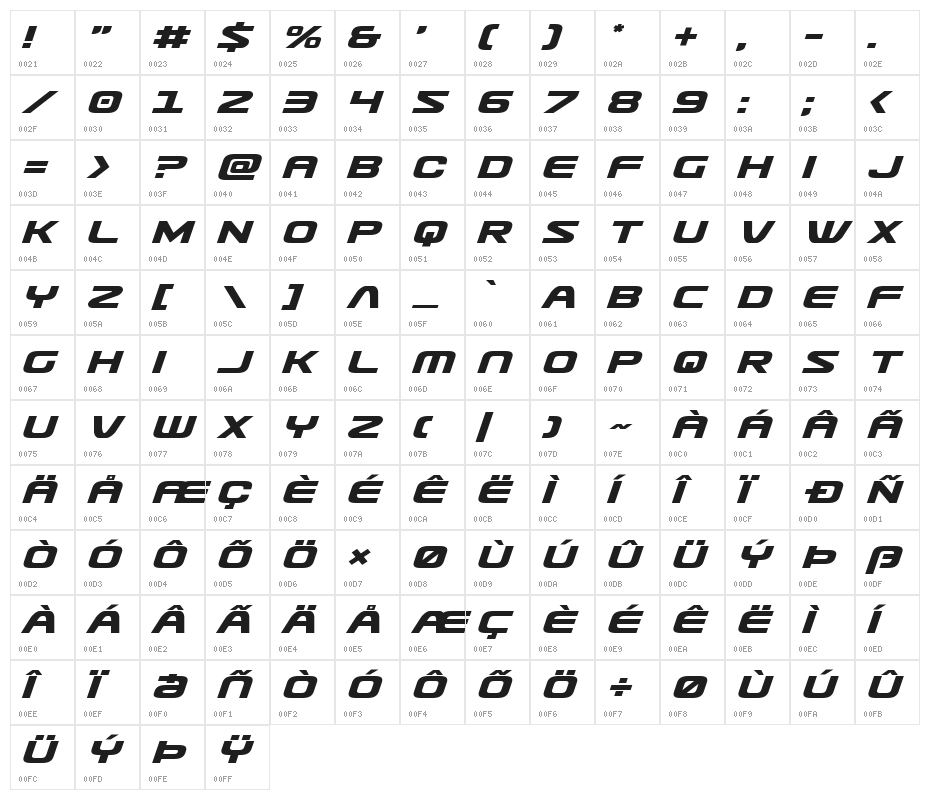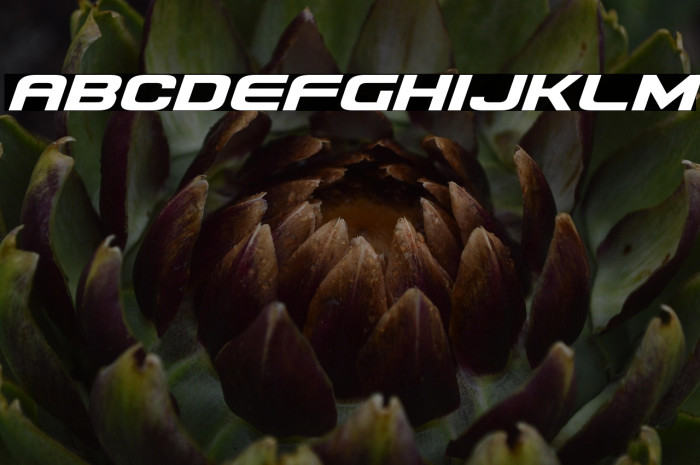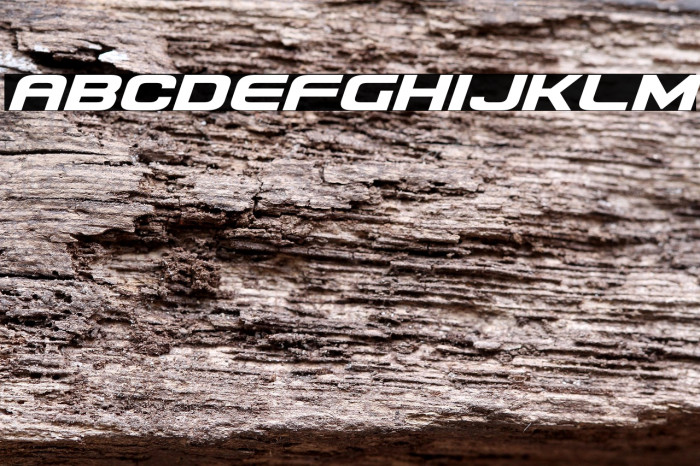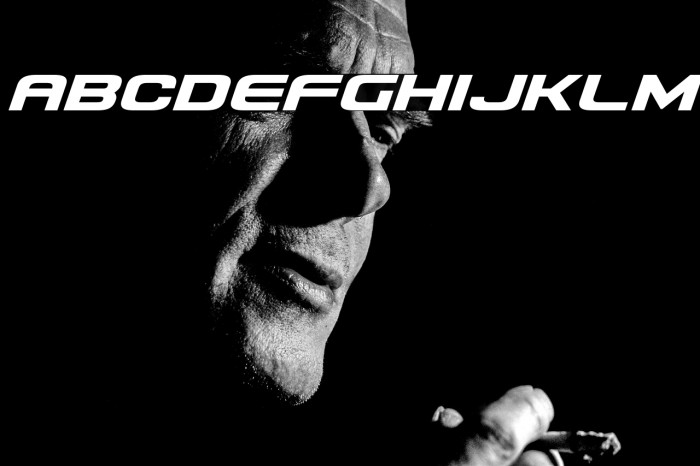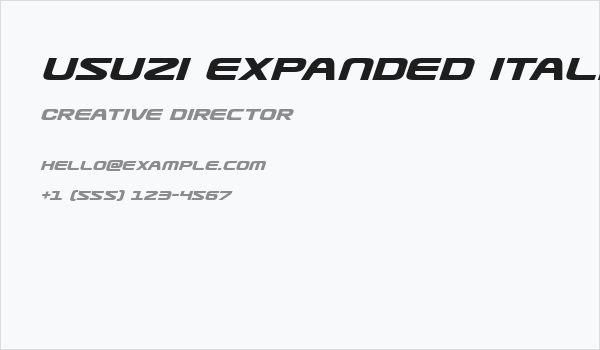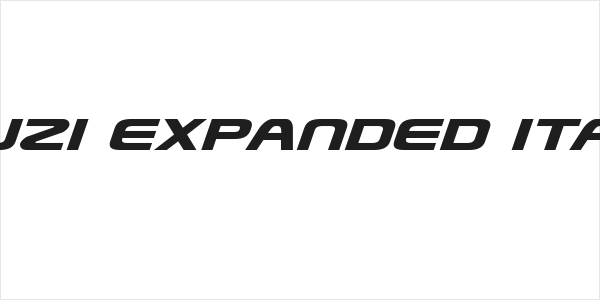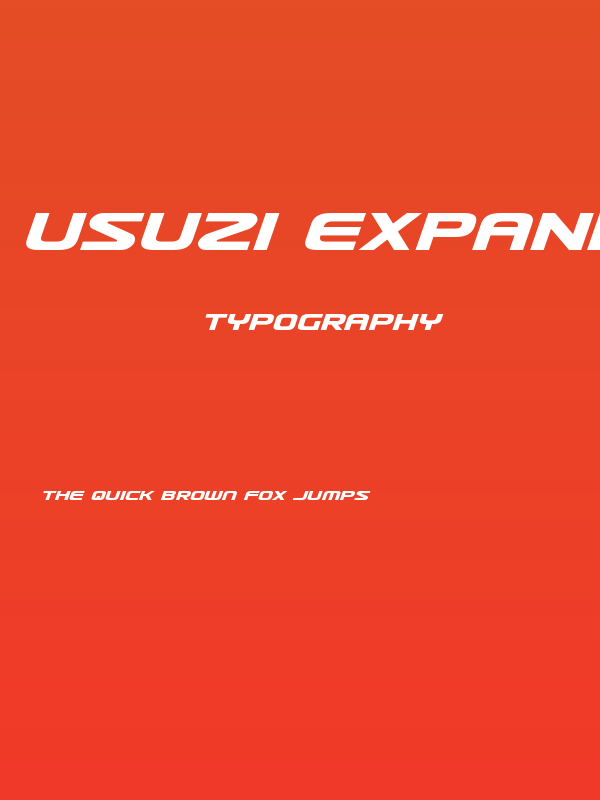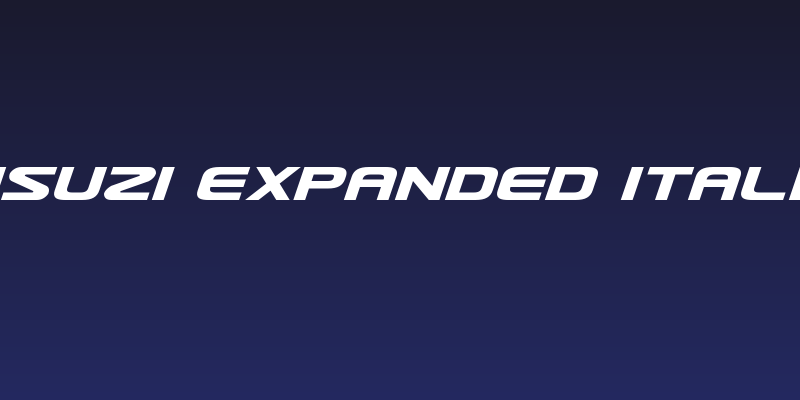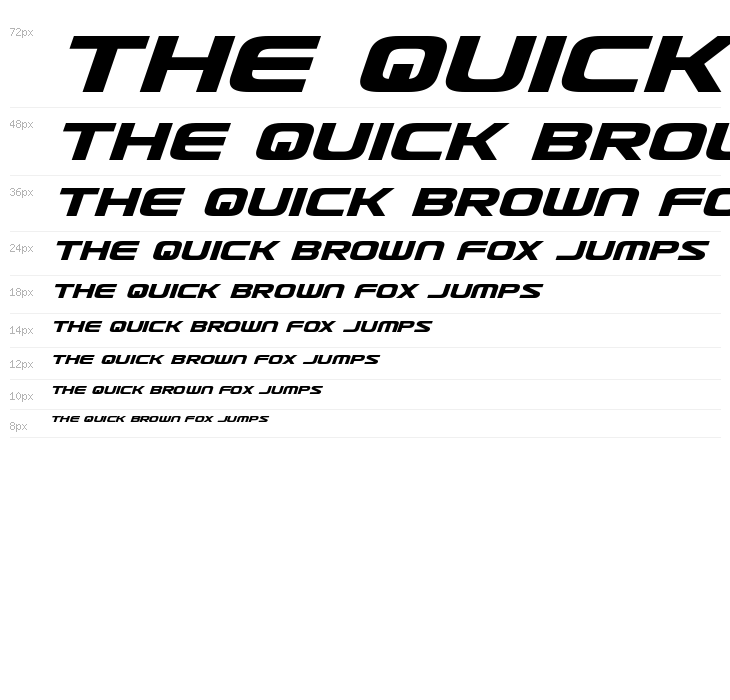
Usuzi Expanded Italic Font
Usuzi Expanded Italic Description
This font features a modern and sleek design with an italicized style that gives it a dynamic and forward-moving appearance. The characters are expanded, providing a sense of openness and readability. The strokes are consistent, with a medium contrast that adds to the font's legibility. Its geometric shapes and clean lines make it suitable for contemporary designs. The font includes a full set of uppercase and lowercase letters, numbers, and a variety of special characters, making it versatile for different applications.
| Proposed Projects | Ideal for branding projects, modern website headers, sports team logos, and dynamic advertising materials. |